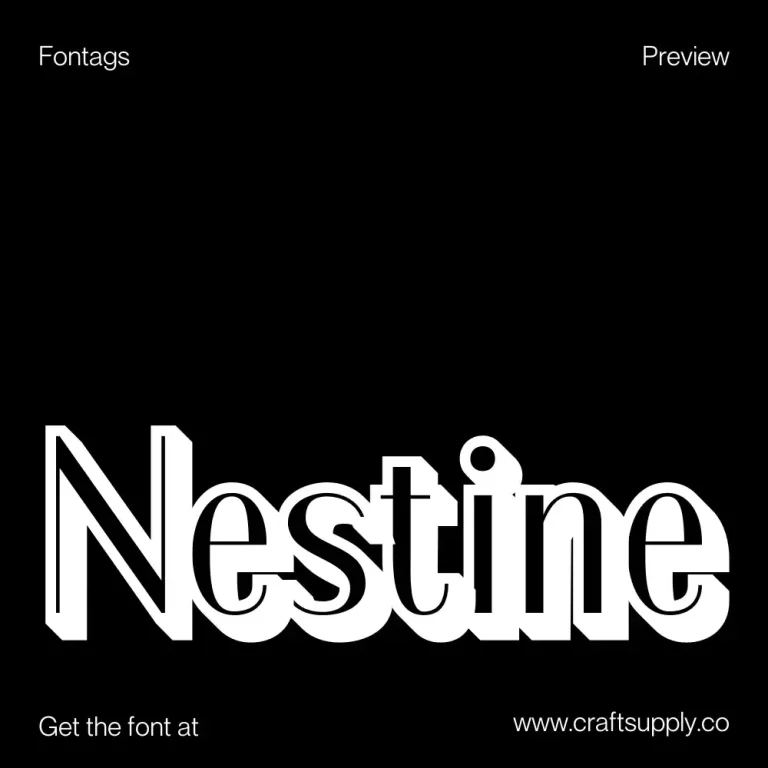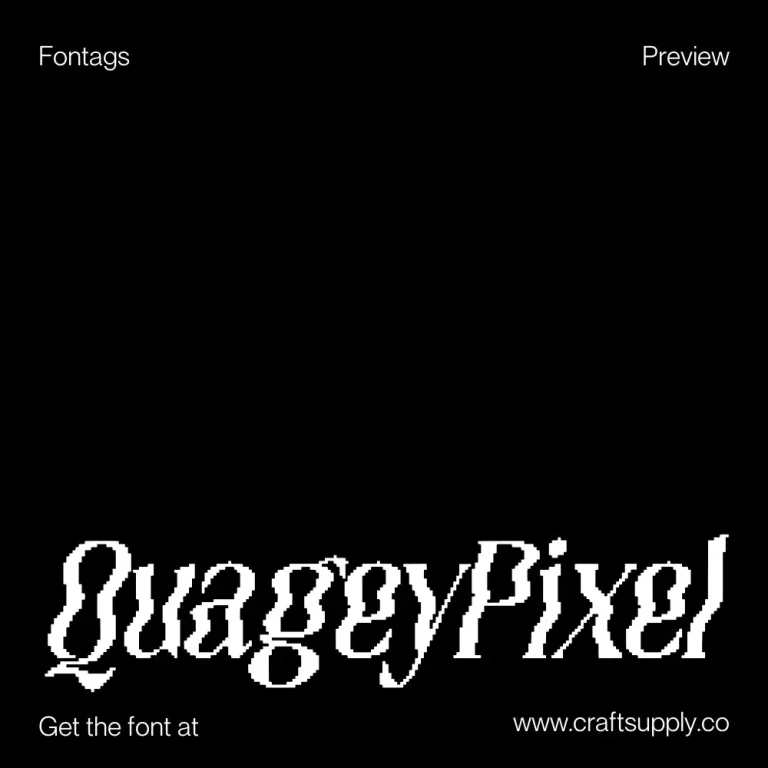
Nestine 3D
Introducing : Nestine 3D, a sans serif font, introduces a dynamic extrusion effect that elevates each character, providing a captivating three-dimensional appearance. With a bold outline that outlines each letter, Nestine 3D ensures legibility and a striking visual impact, making it a…
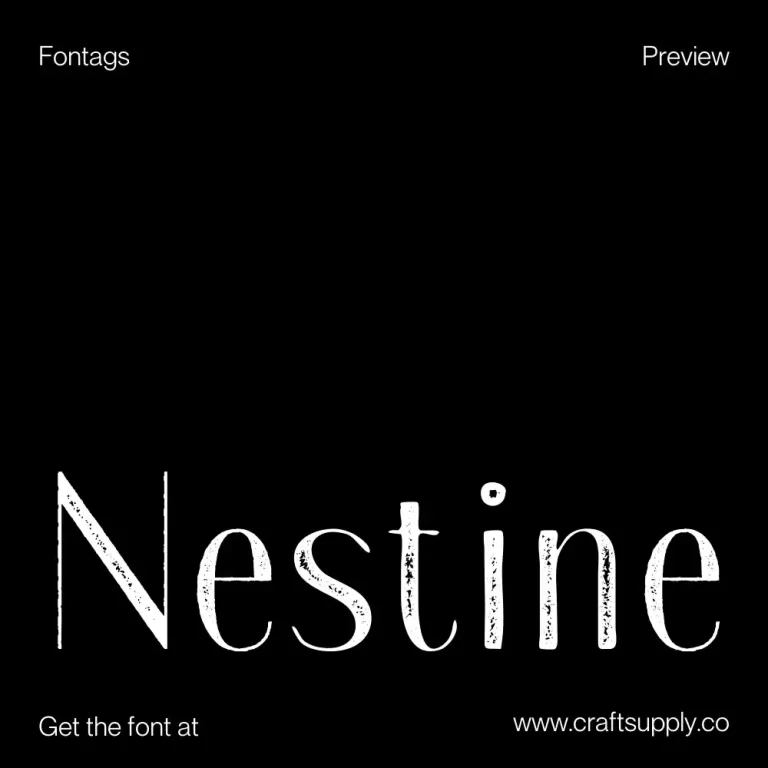Busky
Introducing : Meet Urban Graffiti Font Busky, a vibrant display font inspired by street art. This font captures the essence of graffiti culture. It’s perfect for adding a playful touch to your designs. Busky’s bold and lively appearance is sure to grab…
Nestine Vintage
Introducing : Nestine Vintage Sans Serif Font is a unique sans serif font, capturing the essence of the past. Its design blends modern and retro display, making it versatile for various uses. With a distinct appearance, it stands out in any…
Quagey Pixel
Introducing : Quagey Pixel is a pixelated serif font with a psychedelic and funky style, creating a dynamic, bold, and captivating look. Its unique design makes it ideal for projects that aim to stand out and be full of creativity. Download
Quagey 3D
Introducing : Quagey 3D embodies the essence of psychedelic design, drawing inspiration from trippy visual display. Its bold and vibrant presence captures attention and invites viewers into a mesmerizing journey. Download
Quagey Vintage
Introducing : Quagey Vintage – Stamp Font introduces a unique blend of styles. It’s a display font with a psychedelic twist. Perfect for those seeking a vintage flair, it stands out. This font captures a retro essence, ideal for various designs. Download
Rapsed Blur
Introducing : Rapsed Blur is a display serif font that takes you on a journey through psychedelic shapes, retro vibes, and funky elements, all wrapped in a blur effect. This font offers a unique and striking appearance, perfect for projects that aim to…
Rapsed 3D
Introducing : Rapsed 3D, a sans serif display font, effortlessly channels the retro vibes of the 90s, invoking a sense of nostalgia in every character. Taking a cue from the era of pixels and grunge, this font incorporates an extrude effect, casting…
Rapsed Vintage
Introducing : Rapsed – Vintage Font is a unique serif font, embodying a retro and vintage feel. It features a grunge, stamped, rough appearance, ideal for nostalgic designs. This font captures the essence of a bygone era, making it perfect…
Amigie
Introducing : Amigie – Display Serif is a unique display font that stands out with its distinctive serif design. Its bold and innovative shape makes it perfect for eye-catching displays and powerful branding. This font captures attention, offering a fresh take on…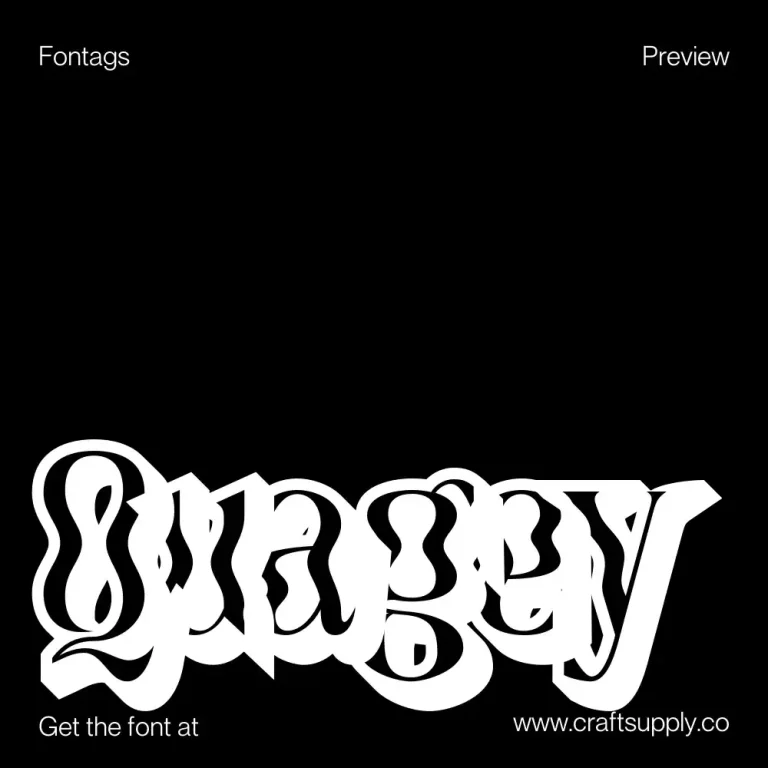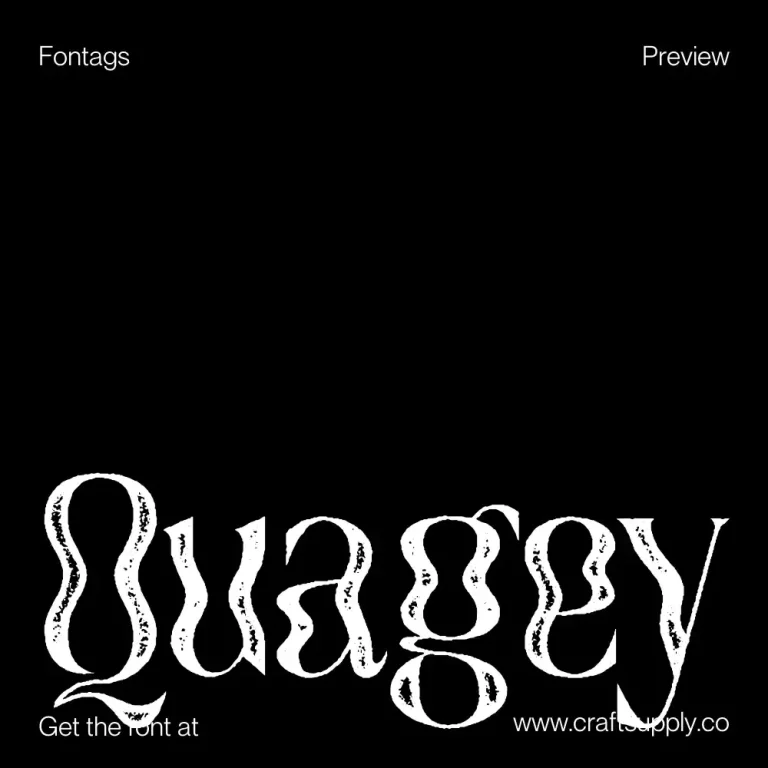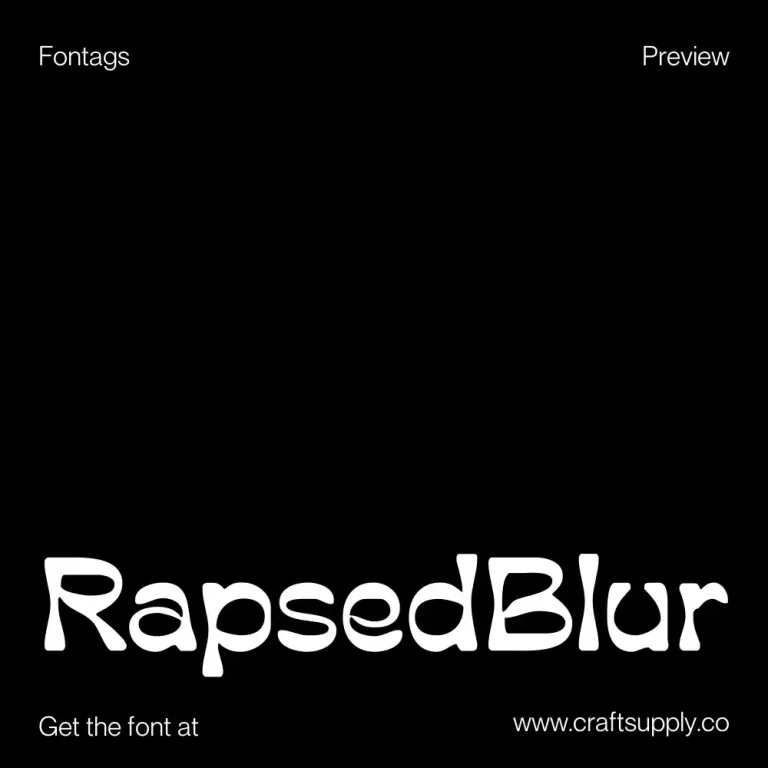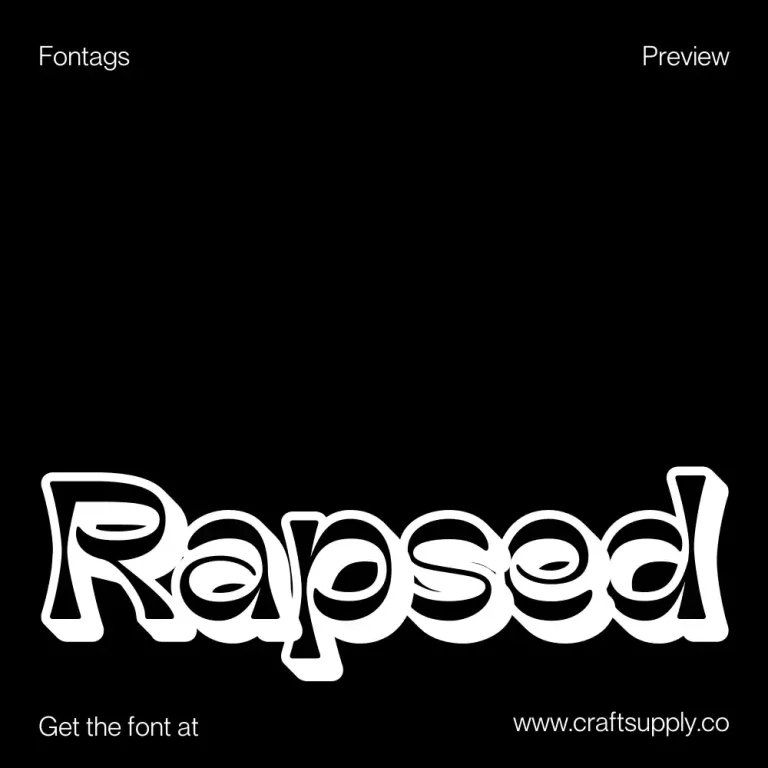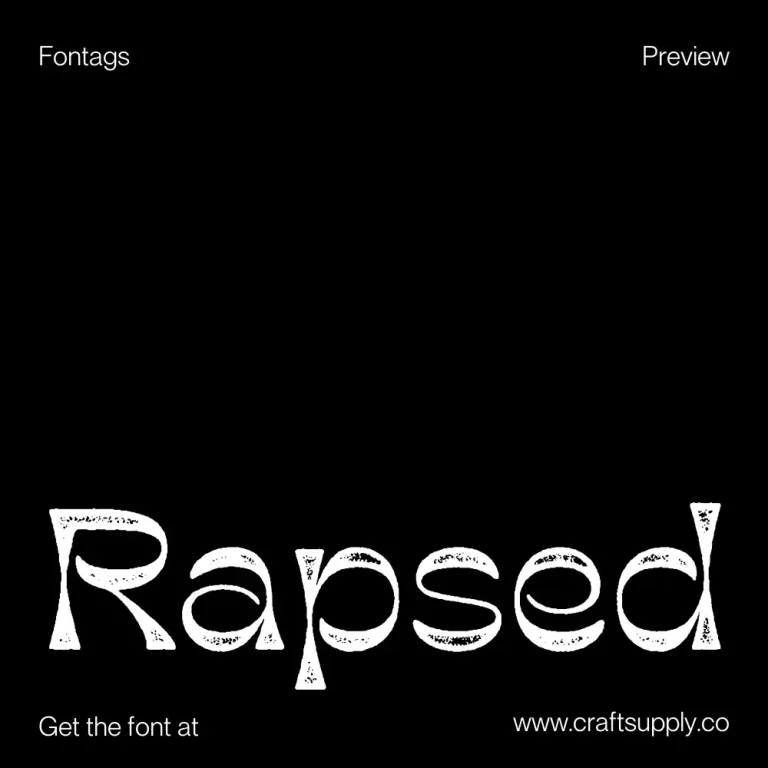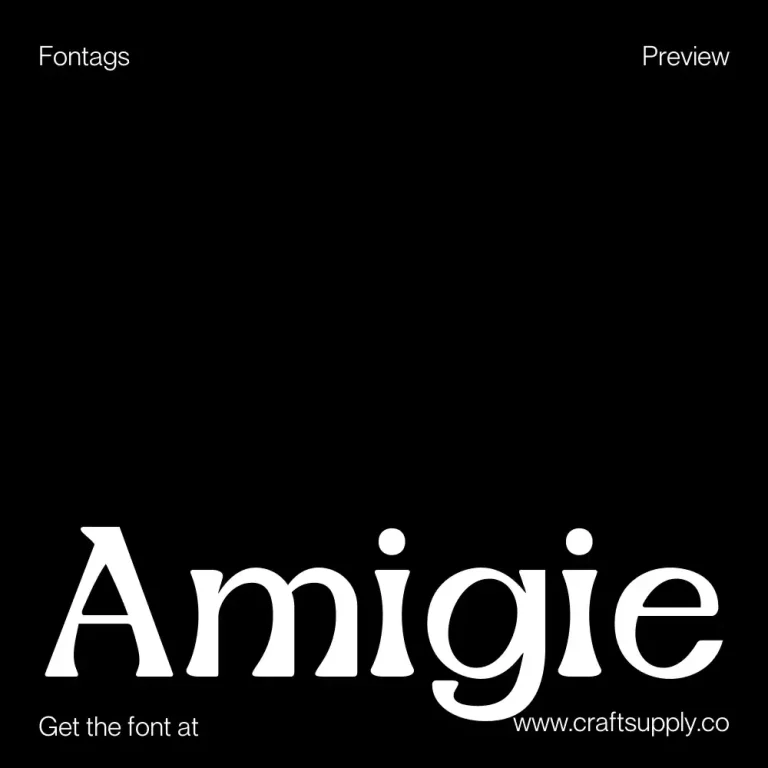